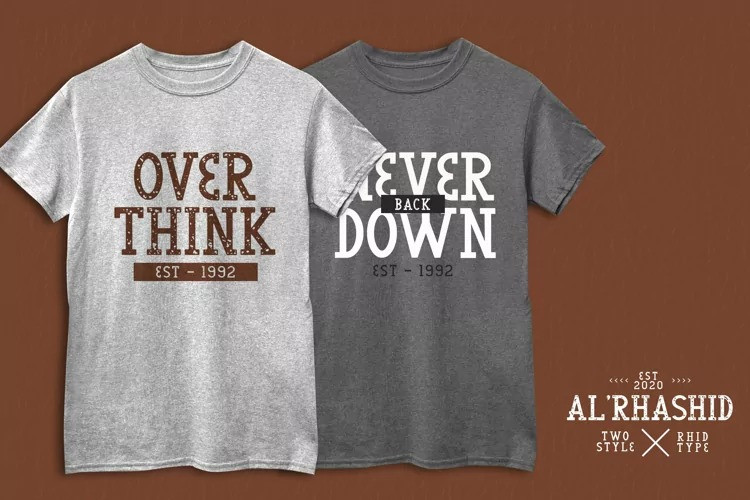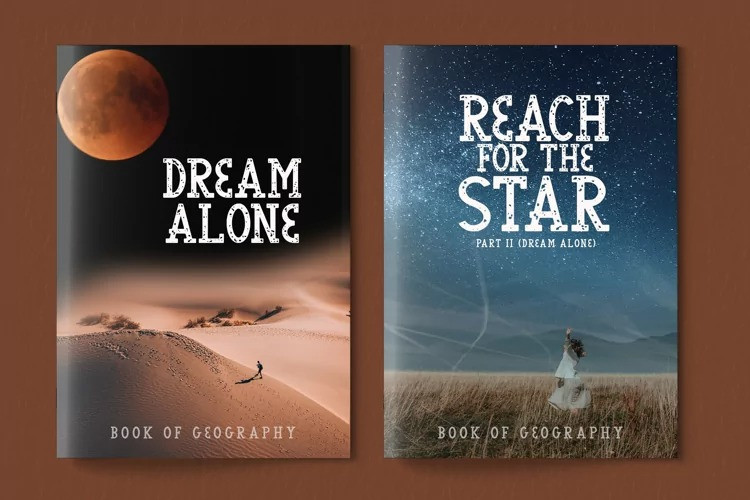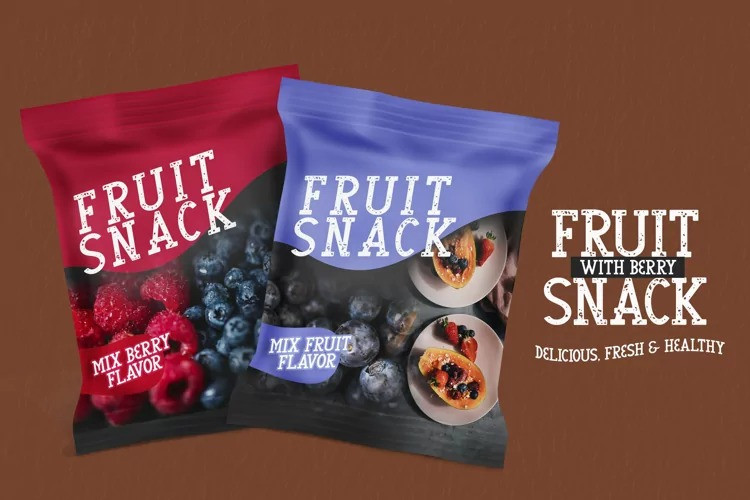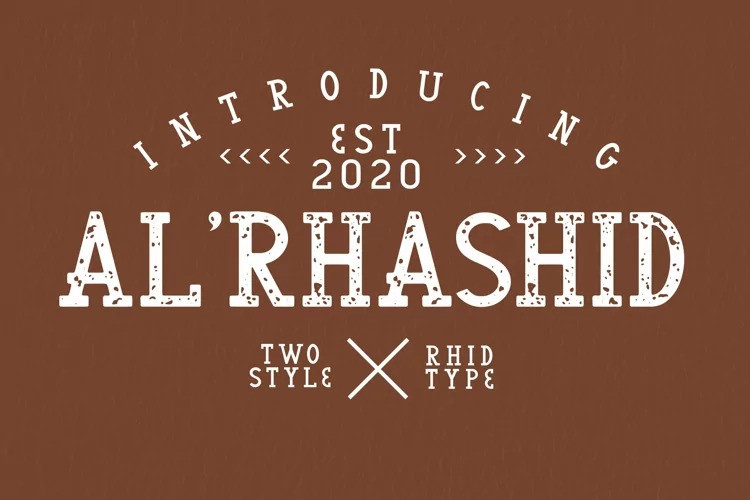
Al’Rhasid Font
Al’Rhasid Display Font
This is a display slab serif typeface inspired from letterpress in old signane, they have a verry rough and rust character. It has thick letters and it is the ideal choice for making amazing designs. Add it confidently to your projects, and you won’t be disappointed.